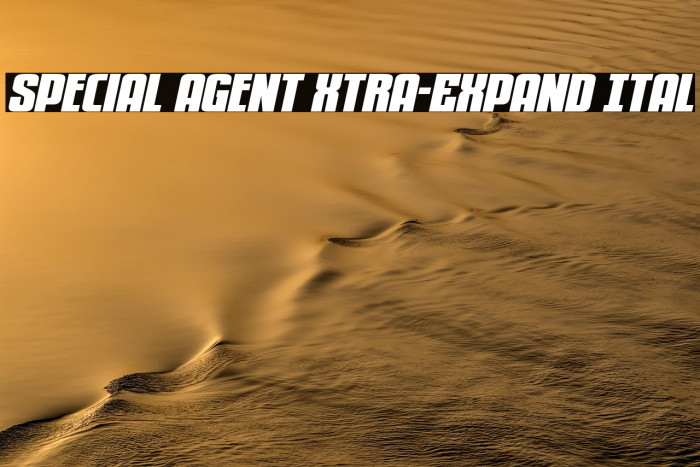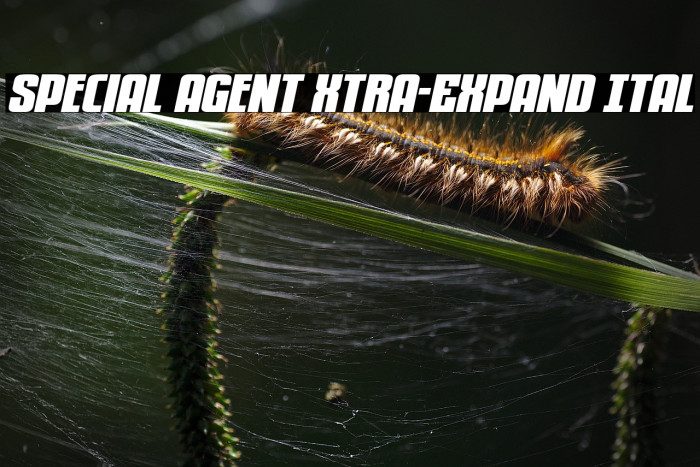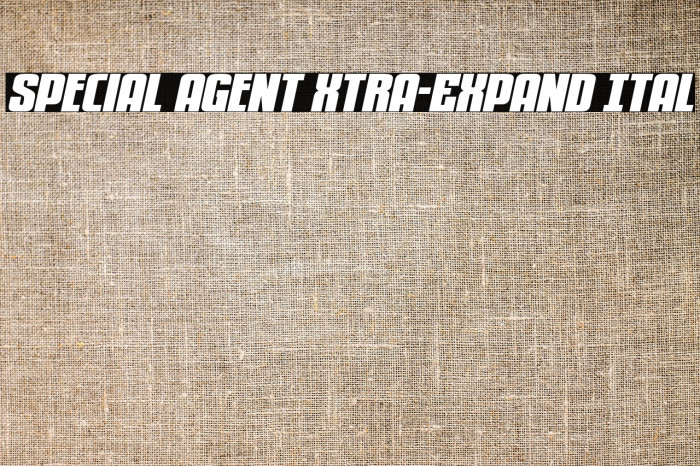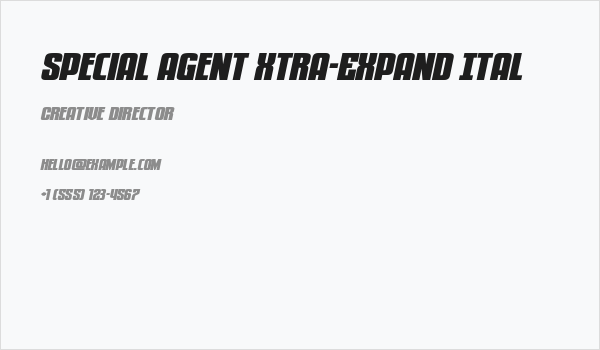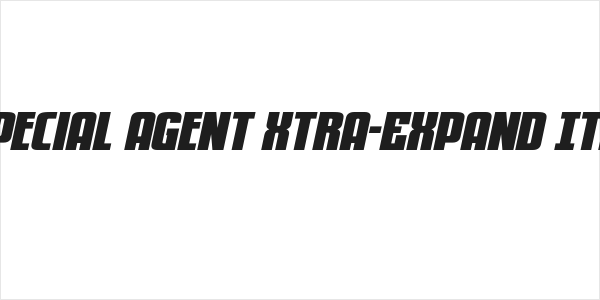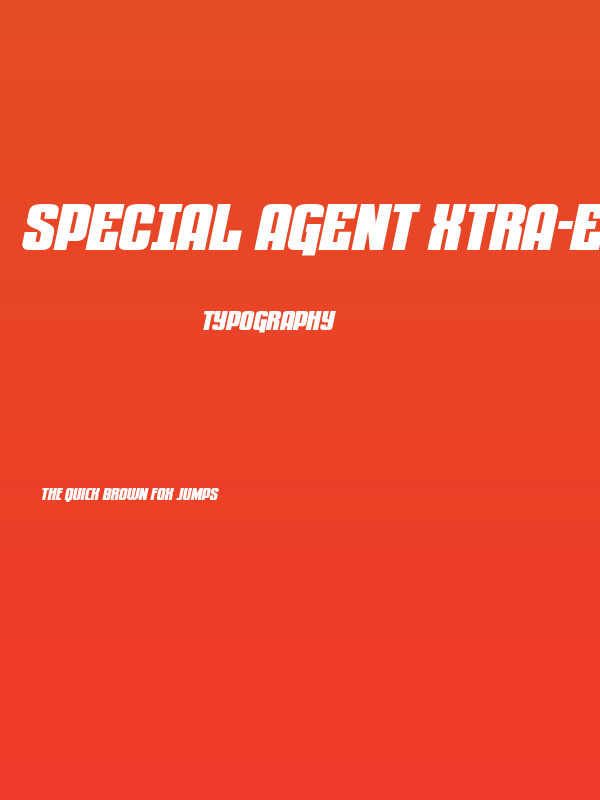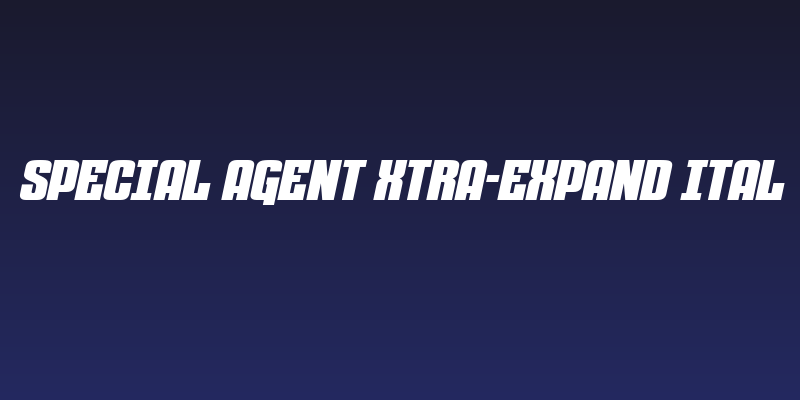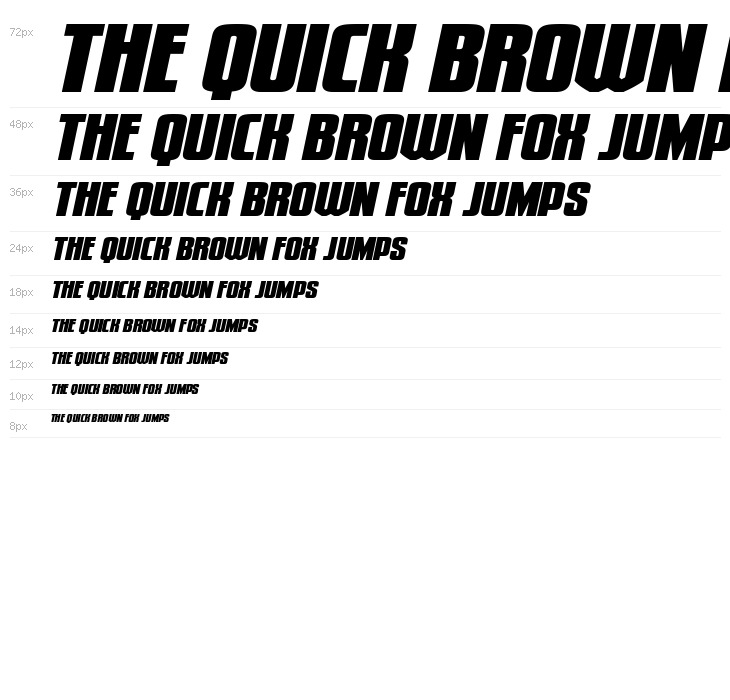
Special Agent Xtra-Expand Ital Font
Special Agent Xtra-Expand Ital Description
This font features a bold, expanded style with a distinct italic slant, giving it a dynamic and energetic appearance. The characters are robust and wide, with a strong presence that commands attention. The uppercase letters are particularly striking, with sharp angles and a sense of movement. The numbers and special characters maintain this boldness, ensuring consistency across all glyphs. The overall design is modern and impactful, making it suitable for projects that require a strong visual statement.